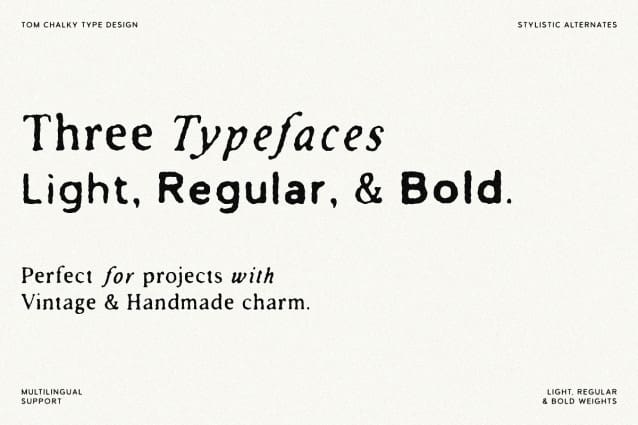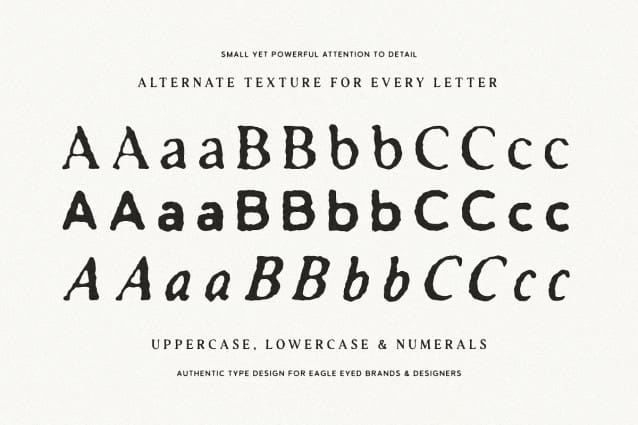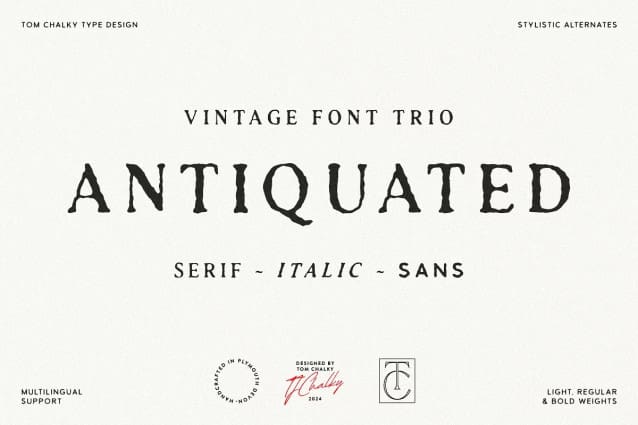
TC Antiquated Sans Font
TC Antiquated Sans Font – Antiquated Font: inspired font collection! This versatile trio of typefaces, each available in three distinct weights, has been designed to be a wonderful blend of modern and rustic styles.
This collection is ideal for modern branding projects with a vintage twist, rustic wedding invitations and stationery, history-themed design projects, and editorial work! I especially enjoy using these fonts in smaller sizes with wide spacing as displayed throughout the presentation imagery.